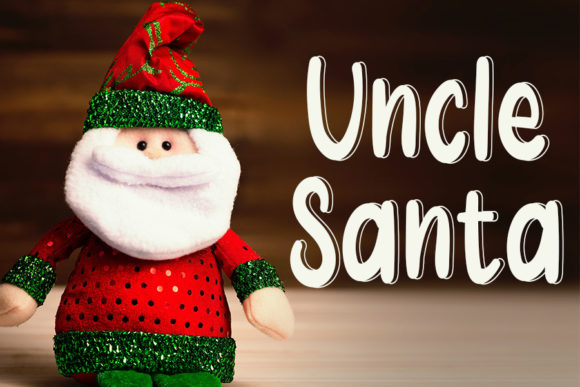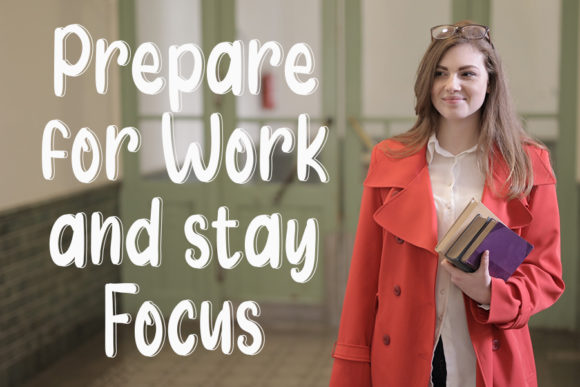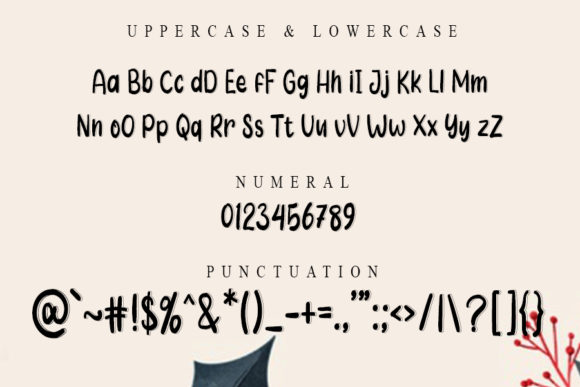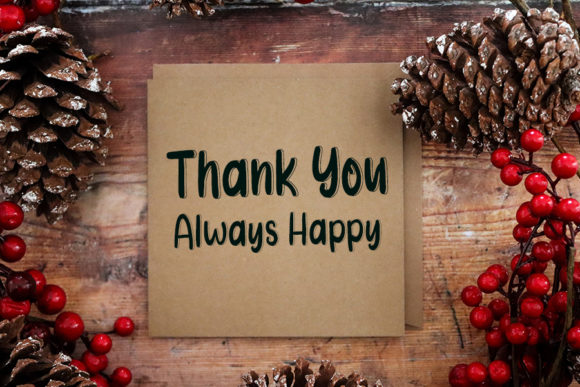
Introducing Afternoon Farmhouse Font: The Perfect Addition to Your Crafting Projects
Are you a designer or crafter looking for a font that can add a touch of warmth and friendliness to your projects? Look no further than Afternoon Farmhouse Font. This fresh and friendly display font is ideal for holiday-themed greeting cards, crafting projects, and any other creative endeavor that requires a cute and charming touch.
What is Afternoon Farmhouse Font?
Afternoon Farmhouse Font is a display font designed to evoke a sense of rustic charm and whimsy. Its unique and playful lettering style makes it perfect for adding a personal touch to your crafting projects. Whether you’re creating holiday cards, gift tags, or scrapbooking pages, this font is sure to impress.
Key Features of Afternoon Farmhouse Font
- Fresh and Friendly Design: Afternoon Farmhouse Font boasts a fresh and friendly design that is sure to capture the attention of your audience.
- Display Font: This font is specifically designed as a display font, making it perfect for headlines, titles, and other creative projects.
- Rustic Charm: The font’s rustic charm and whimsical style make it ideal for crafting projects that require a personal touch.
- Holiday-Themed Projects: Afternoon Farmhouse Font is perfect for holiday-themed greeting cards, gift tags, and other crafting projects.
Uses of Afternoon Farmhouse Font
Afternoon Farmhouse Font can be used in a variety of creative projects, including:
- Holiday Greeting Cards: Add a personal touch to your holiday greeting cards with this charming font.
- Crafting Projects: Use Afternoon Farmhouse Font to add a cute and playful touch to your crafting projects, such as scrapbooking pages, gift tags, and more.
- Signs and Banners: This font is perfect for creating eye-catching signs and banners for parties, events, and other gatherings.
- Social Media Graphics: Use Afternoon Farmhouse Font to create engaging social media graphics that are sure to capture the attention of your audience.
Tips for Using Afternoon Farmhouse Font
Here are a few tips for using Afternoon Farmhouse Font in your creative projects:
- Pair with Other Fonts: Pair Afternoon Farmhouse Font with other fonts to create a unique and visually appealing design.
- Experiment with Colors: Experiment with different colors to find the perfect combination that complements your project.
- Use for Headlines and Titles: Use Afternoon Farmhouse Font for headlines and titles to add a touch of personality to your project.
Afternoon Farmhouse Font is a fresh and friendly display font that is perfect for adding a touch of warmth and friendliness to your crafting projects. Its unique and playful lettering style makes it ideal for holiday-themed greeting cards, crafting projects, and any other creative endeavor that requires a cute and charming touch. With its rustic charm and whimsical style, this font is sure to become a favorite among designers and crafters.
In conclusion, Afternoon Farmhouse Font is a versatile and charming font that is perfect for designers and crafters looking to add a personal touch to their projects. Its fresh and friendly design, rustic charm, and whimsical style make it an excellent choice for a variety of creative endeavors.